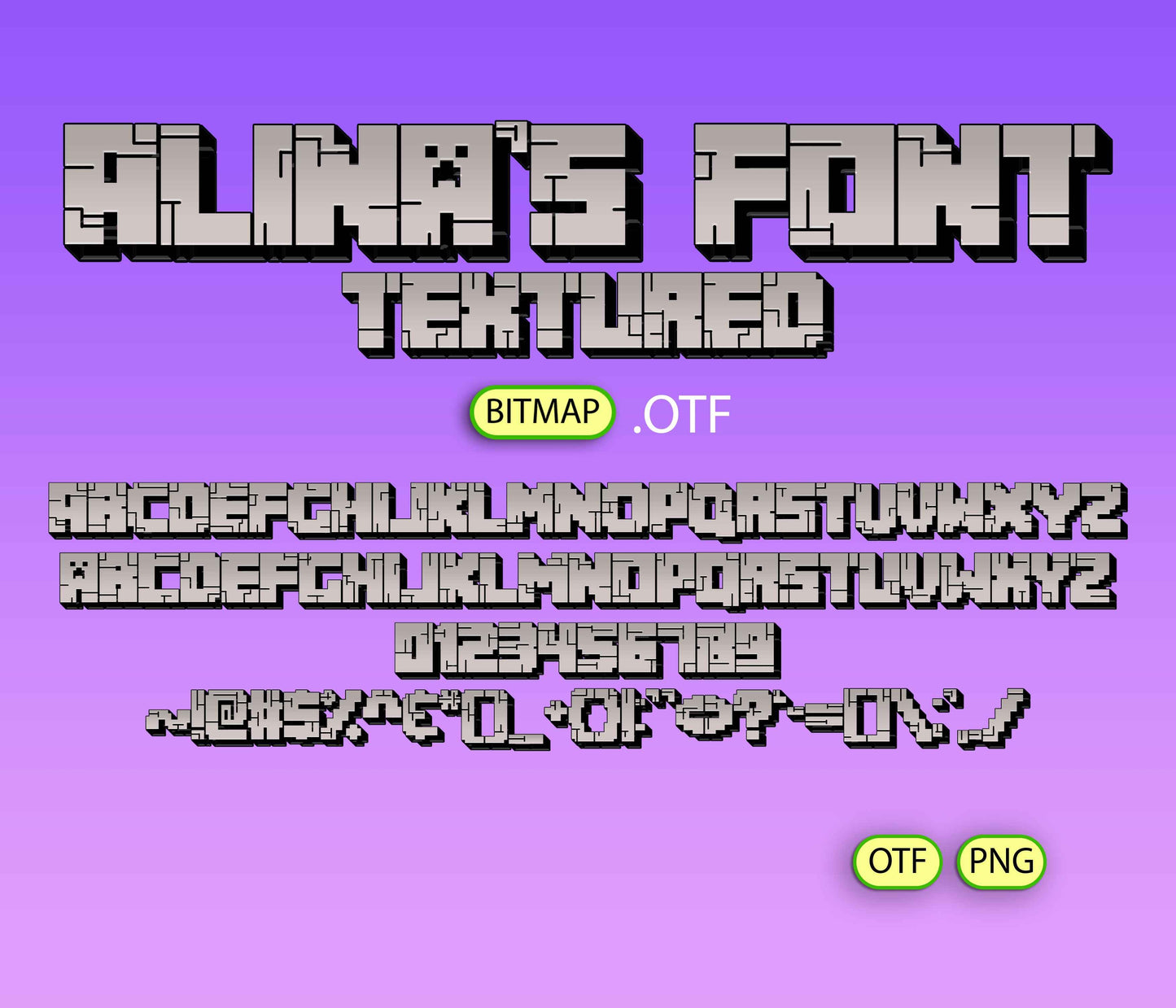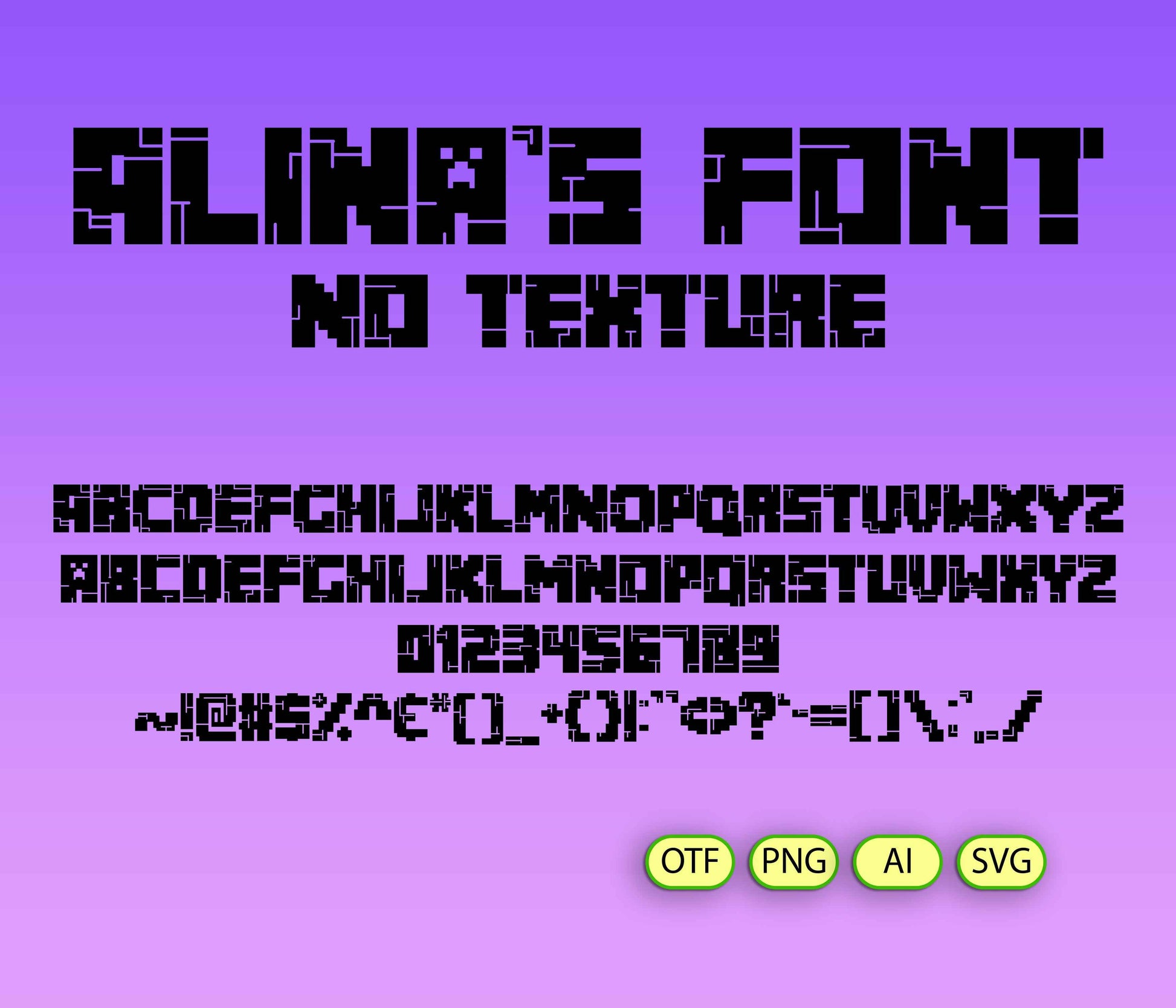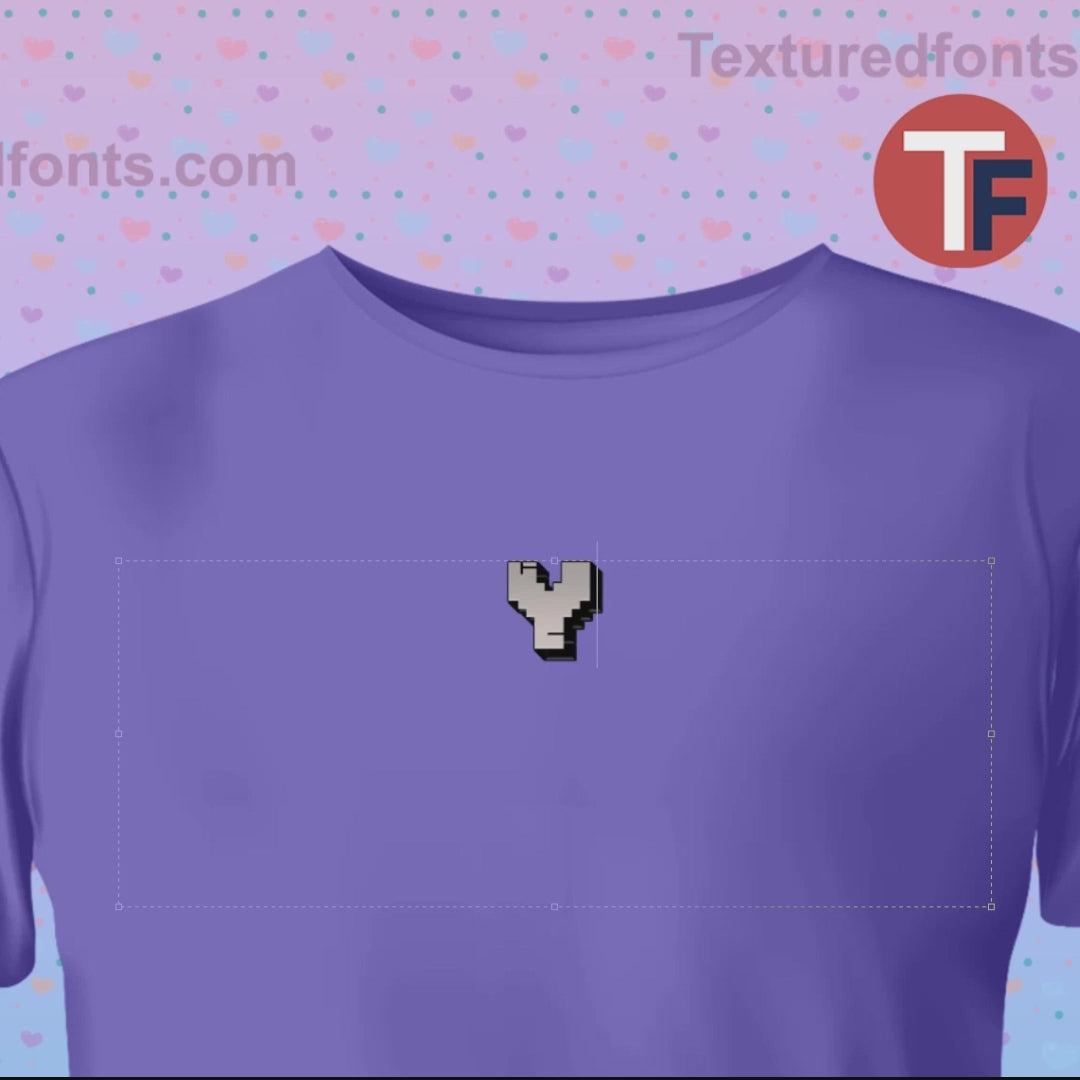
Block Craft Font Textured
Build Creatively with the Block Craft Font
Immerse yourself in the pixelated world of creativity with our Block Craft-inspired font, designed to capture the essence of the globally beloved sandbox game. Perfect for gamers, educators, and designers, this font embodies the blocky, digital look, making it ideal for projects that require a touch of gaming nostalgia and creativity.
This font mirrors the iconic pixel art style with square, block-like characters that evoke the game's unique visuals. The simple yet impactful design is versatile and suitable for various applications:
- Educational Content: Enhance STEM-related materials or coding workshops with a font that appeals to young learners.
- Gaming Events: Create engaging promotional materials for game tournaments, meet-ups, or themed parties.
- Digital Media: Use in web design, YouTube video titles, or social media posts to attract and engage the gaming community.
- Merchandising: Design t-shirts, stickers, and posters that capture the spirit of block-based creativity.
- Personal Projects: Add a fun, thematic touch to crafts, birthday invitations, or room decor.
To ensure the font is as functional and accessible as possible, our Block Craft-inspired font includes both textured and non-textured variants. The non-textured version is especially practical, ensuring compatibility with all types of software, including Canva. This adaptability makes the font incredibly user-friendly and versatile, ideal for both professional graphic designers and casual creators looking to infuse a bit of pixelated magic into their projects.
Many people seek out a Block Craft Font generator online to mimic the look of the Block Craft Font. Steer clear! No font generator can match the quality of this Block Craft Font, which comes in two versatile versions: a textured colored Block Craft font and a simple Block Craft font. This is particularly beneficial if you plan to use it with a cutting machine.
Our Block Craft font not only pays homage to the game but also invites you to bring its creative, block-building spirit into your own designs. Whether you're producing educational content, crafting personalized merchandise, or designing for digital platforms, this font helps you communicate with the fun, engaging, and imaginative style that is quintessentially block-based gaming. Ready to start building your creative projects with the distinctive, pixelated flair of Block Craft? This font is the perfect tool to help you stack up your design game, block by block.